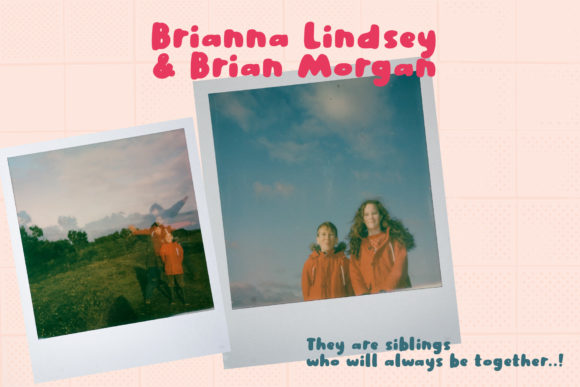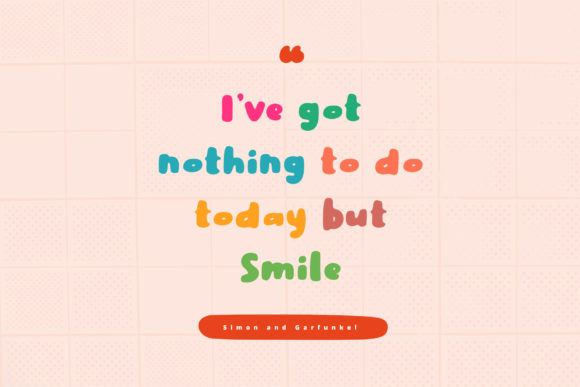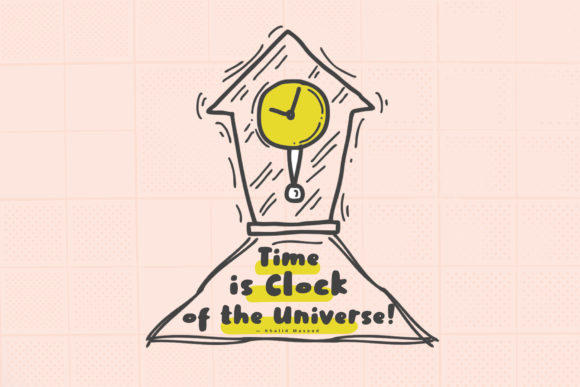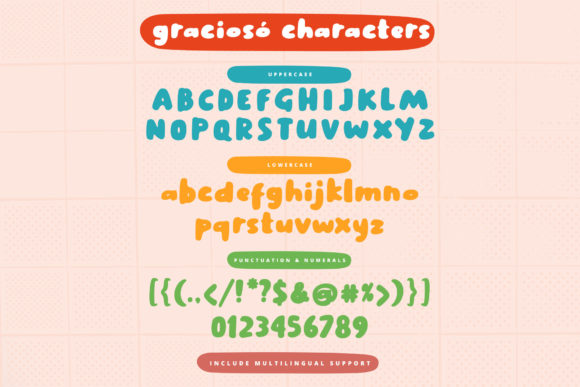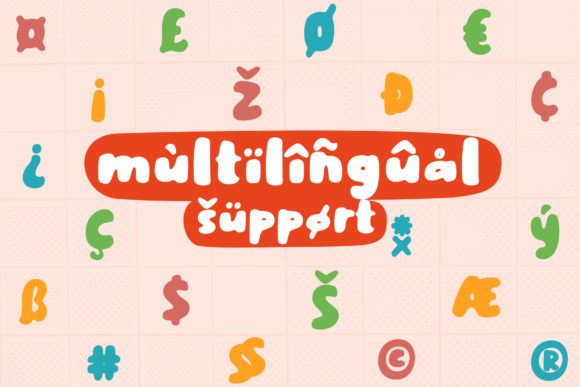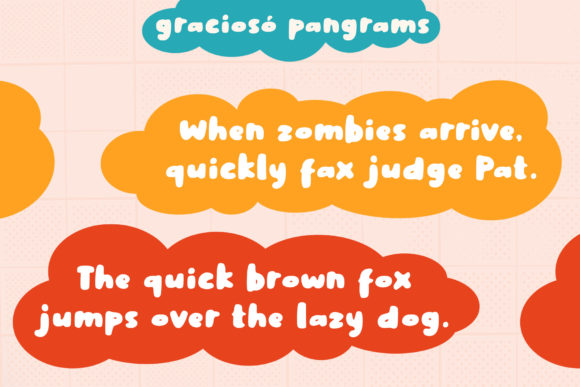
Introduction to Gracioso Font
Have you ever stared at a blank canvas, waiting for the perfect idea to strike? That’s exactly what happened to me last week, when I was working on a creative project and needed just the right font to bring it to life. I remember scrolling through my font library, searching for something that would add a touch of whimsy and personality to my design. And then, I stumbled upon the Gracioso Font – a cute and playful display font that seemed to dance along the baseline.
As a designer, I know how valuable a high-quality font can be in elevating a project from good to great. And the Gracioso Font is no exception. With its transparent background and charming characters, it’s the perfect design resource for anyone looking to add a touch of magic to their work.
- High-quality, elegant design ideal for creative projects, including wedding invitations, greeting cards, and other design resources.
- Designed to be highly legible, with clear and refined lettering suitable for a wide range of applications.
- Unique, hand-crafted design elements that add a touch of sophistication and elegance to any creative project.
As a designer, I’m always on the lookout for high-quality design resources to elevate my creative projects. Recently, I stumbled upon the Gracioso Font, and I’m excited to share my honest review.
What works well: ✨ The Gracioso Font is incredibly versatile and can be used for a wide range of creative projects, from logos and branding to typography and web design. The font’s unique, elegant design makes it a great choice for those looking for a high-quality, premium feel.
Any limitations: ⚠️ While the Gracioso Font is an excellent choice for many design projects, it may not be the best option for those requiring a more modern or edgy feel. Additionally, the font may not be compatible with all operating systems or software.
Overall, I’m impressed with the Gracioso Font and would highly recommend it to designers looking for a high-quality, elegant font for their creative projects. With its versatility, customizability, and free download, it’s a valuable resource for any design team.
Gracioso Font is a high-quality design resource that offers a unique and creative solution for your projects. With a transparent background, this font can be easily integrated into any design element, making it an ideal choice for designers and artists.
Gracioso Font is ideal for a variety of creative projects, including:
– Branding and marketing materials
– Digital art and illustrations
– Print materials and packaging